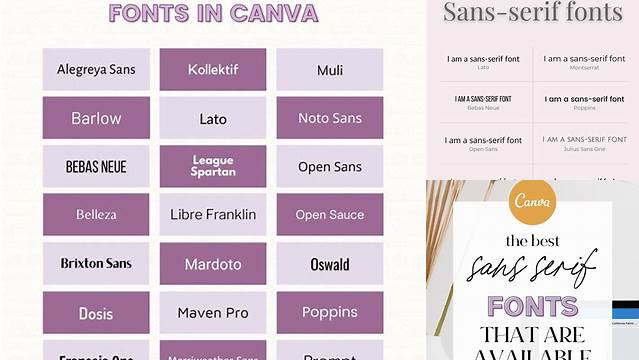
Best Bold Sans Serif Fonts On Canva For Stunning Designs
Are you looking for the best bold sans serif fonts on Canva to elevate your design projects? Look no further! Selecting the right font is crucial for making your text pop and conveying the right message. In this article, we'll dive into some standout options available directly within Canva, perfect for adding emphasis and clarity to your designs. From sleek and modern to strong and authoritative, we've got you covered.
Why Choose Bold Sans Serif Fonts?
When it comes to readability and making a statement, bold sans serif fonts are a top choice for designers. Sans serif fonts, characterized by the absence of small extending features called serifs, offer a clean and modern look. Adding boldness amplifies their impact, making them ideal for headlines, titles, and call-to-action buttons. They grab attention and ensure your message is easily seen and understood. Moreover, these fonts work exceptionally well in digital environments, rendering clearly on screens of all sizes, which is crucial in today's mobile-first world. Whether you’re designing a website, creating social media graphics, or putting together a presentation, bold sans serif fonts can significantly enhance the visual appeal and effectiveness of your content. Their versatility makes them a staple in any designer's toolkit, suitable for a wide range of projects from corporate branding to eye-catching marketing materials. Plus, the inherent simplicity of sans serif fonts means they pair well with a variety of other font styles, giving you creative freedom to craft unique and engaging designs that stand out from the crowd. So, if you aim to make a lasting impression, consider leveraging the power of bold sans serif fonts in your next Canva project.
Top Bold Sans Serif Fonts on Canva
Canva offers a treasure trove of fonts, but finding the perfect bold sans serif font can sometimes feel like searching for a needle in a haystack. Let's highlight some of the best options that Canva has to offer, ensuring your designs pack a punch. First up is Montserrat. This font is incredibly versatile, boasting clean lines and a modern feel. Its bold variant is perfect for headlines and subheadings, providing excellent readability without sacrificing style. Next, consider Open Sans. Known for its neutrality and legibility, Open Sans Bold is a fantastic choice for body text as well as headers. Its friendly appearance makes it approachable and easy on the eyes, ensuring your audience stays engaged with your content. Another excellent option is Lato. With its semi-rounded details, Lato Bold exudes warmth while maintaining a professional look. It works well in a variety of contexts, from website copy to print materials. For a more impactful and contemporary feel, Poppins is a great choice. Its geometric design and strong letterforms make it ideal for grabbing attention, especially in headings and call-to-action buttons. If you're looking for something with a bit more character, Raleway offers a stylish and elegant option. Its bold version adds a touch of sophistication to any design. Lastly, don't overlook Roboto. This font is widely used for its clean and functional design, making it a reliable choice for all types of projects. Each of these fonts brings its unique flair, giving you the flexibility to find the perfect match for your design needs. Experiment with them in Canva to see which ones resonate best with your vision and help you create truly captivating designs.
Montserrat
When discussing bold sans serif fonts available on Canva, Montserrat invariably tops the list for its versatility and modern appeal. Montserrat is a geometric sans serif font that was inspired by the urban typography of the Montserrat neighborhood in Buenos Aires. Its clean, crisp lines make it highly legible, and its various weights provide ample flexibility for different design needs. The bold version of Montserrat is particularly effective for headlines, subheadings, and any text that needs to stand out. Its strong presence commands attention without being overwhelming, making it a favorite among designers. One of the reasons Montserrat is so popular is its ability to convey both professionalism and approachability. It works equally well in corporate branding, website design, and marketing materials. The font's clarity ensures that your message is easily read and understood, regardless of the medium. In Canva, Montserrat is readily accessible, allowing you to quickly implement it into your projects. Whether you're creating social media graphics, presentations, or posters, Montserrat Bold can elevate your design and help you achieve a polished and contemporary look. Furthermore, Montserrat pairs seamlessly with a wide range of other fonts, giving you the freedom to create unique and dynamic typography combinations. Experiment with pairing it with a lighter serif font for body text to create a balanced and visually appealing layout. Its adaptability makes it a go-to choice for designers looking for a reliable and stylish sans serif option. With Montserrat Bold, you can be confident that your text will make a strong and lasting impression. It's a must-have in your font arsenal for any Canva project.
Open Sans
Open Sans is another standout bold sans serif font available on Canva, celebrated for its neutrality and exceptional legibility. This font was designed with a focus on readability across print, web, and mobile interfaces, making it an incredibly versatile choice for a wide array of design projects. The bold variant of Open Sans is particularly useful for emphasizing key information without sacrificing clarity. Its friendly and approachable demeanor ensures that your message is easily received by your audience. Open Sans is favored by designers for its clean and unobtrusive design. It doesn't distract from the content but rather enhances it, making it an excellent choice for body text, headlines, and captions. Its open forms and balanced letter widths contribute to its superior readability, even at smaller sizes. In Canva, Open Sans is readily available, allowing you to seamlessly integrate it into your designs. Whether you're crafting a professional presentation, designing a user-friendly website, or creating engaging social media content, Open Sans Bold can significantly improve the overall aesthetic and readability. One of the key advantages of Open Sans is its ability to pair well with various other fonts. Its neutrality allows it to complement both serif and sans serif fonts, giving you the flexibility to create diverse and visually appealing typography combinations. For example, pairing Open Sans Bold with a serif font like Lora or Playfair Display can create a balanced and sophisticated look. Its adaptability and widespread usability make it a staple in the design world. If you're looking for a reliable and highly legible sans serif font that will work well in virtually any context, Open Sans Bold is an excellent choice. It ensures that your message is communicated clearly and effectively, leaving a positive and lasting impression on your audience.
Lato
When discussing bold sans serif font options on Canva, Lato is a noteworthy contender, known for its semi-rounded details that impart a sense of warmth and approachability. Lato strikes a harmonious balance between functionality and aesthetics, making it a versatile choice for various design applications. Its letterforms are designed to be clear and legible, ensuring that your message is easily understood across different mediums. The bold version of Lato is particularly effective for headlines, subheadings, and call-to-action buttons, providing emphasis without sacrificing its inherent friendliness. Designers often choose Lato for its ability to convey a sense of professionalism while remaining inviting. It works exceptionally well in both digital and print environments, making it a reliable option for websites, marketing materials, and presentations. In Canva, Lato is readily accessible, allowing you to seamlessly incorporate it into your projects. Whether you're designing a sleek corporate brochure or creating engaging social media content, Lato Bold can enhance the overall visual appeal and readability. One of the key strengths of Lato is its ability to pair well with a wide range of other fonts. Its semi-rounded characteristics allow it to complement both serif and sans serif fonts, giving you the flexibility to create unique and dynamic typography combinations. For example, pairing Lato Bold with a serif font like Merriweather or a lighter sans serif font like Open Sans can create a balanced and visually appealing design. Its adaptability and user-friendly design make it a favorite among designers. If you're looking for a font that combines clarity with a touch of warmth, Lato Bold is an excellent choice. It ensures that your message is communicated effectively, leaving a positive and memorable impression on your audience. Its versatility and accessibility make it a valuable asset in any designer's toolkit.
How to Use Bold Sans Serif Fonts Effectively
To truly leverage the power of bold sans serif fonts in Canva, it's essential to understand how to use them effectively. Overusing bold fonts can lead to visual clutter and diminish their impact, so moderation is key. Start by identifying the most important elements of your design that you want to emphasize, such as headlines, subheadings, and key phrases. Use bold fonts sparingly to draw the reader's eye to these focal points. Contrast is another critical factor. Pair your bold sans serif font with a lighter weight of the same font or a complementary serif font for body text. This creates a visual hierarchy that guides the reader through your content and enhances readability. Consider the overall tone and style of your design. A very bold and heavy font might be suitable for a strong, impactful message, while a slightly lighter bold font might be more appropriate for a softer, more approachable design. Experiment with different font sizes and spacing to achieve the desired effect. A larger font size naturally commands more attention, while careful use of letter spacing and line height can improve readability and visual appeal. Pay attention to color as well. Using a contrasting color for your bold text can make it stand out even more, but be mindful of color psychology and ensure that your color choices align with your brand and message. Always test your designs on different devices and screen sizes to ensure that the text remains legible and visually appealing. What looks good on your computer screen may not translate well to a mobile device. Finally, don't be afraid to experiment and break the rules. While these guidelines provide a solid foundation, the best way to find what works for you is to try different combinations and see what resonates with your audience. With careful planning and thoughtful execution, you can harness the power of bold sans serif fonts to create visually stunning and highly effective designs in Canva.
In conclusion, choosing the right bold sans serif font on Canva can significantly enhance the visual impact and effectiveness of your designs. Fonts like Montserrat, Open Sans, and Lato offer versatility and readability, making them excellent choices for various projects. By understanding how to use these fonts effectively—emphasizing key elements, creating contrast, and considering overall tone—you can create visually stunning and engaging designs. So go ahead, experiment with these fonts in Canva, and elevate your design projects to the next level!